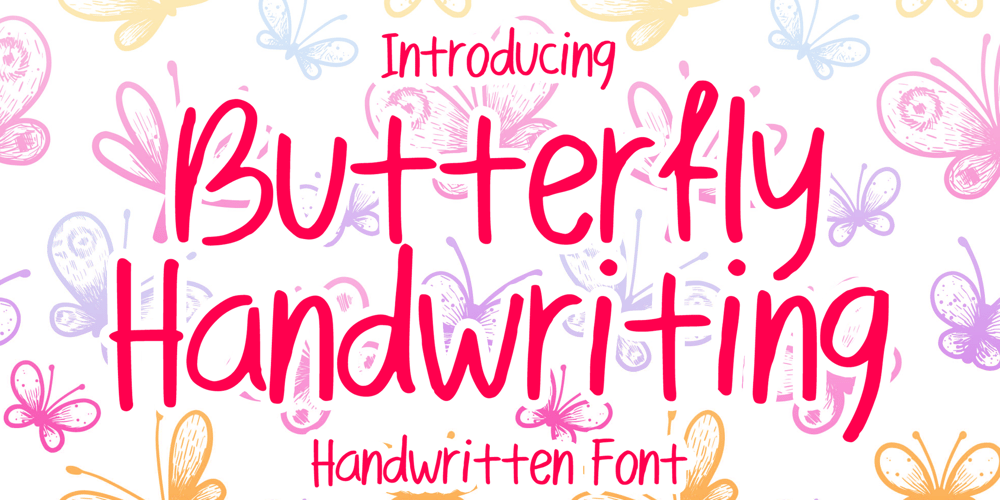
Butterfly Handwriting
Butterfly Handwriting font
Butterfly Handwriting Font Family was designed by Gabriel Valentinus and published by Mvmet. Butterfly Handwriting contains 1 styles and family package options. Butterfly Handwriting is a lovely skinny handwritten font. It will elevate a wide range of design projects to the highest level. You can use this font for many design ideas such as stickers, t-shirt designs, amazing logo designs, magazine or book covers, comics, cartoon drawings, daily typing, and many more. This font will add a super cool touch to your designs!